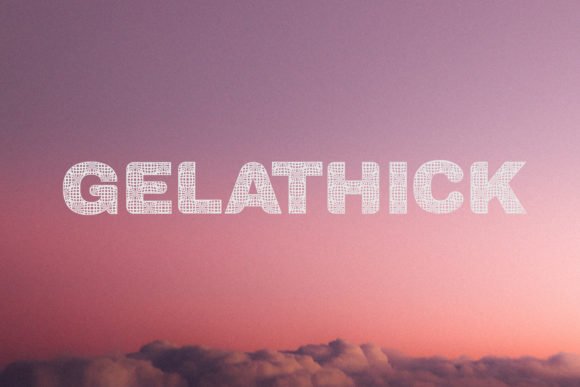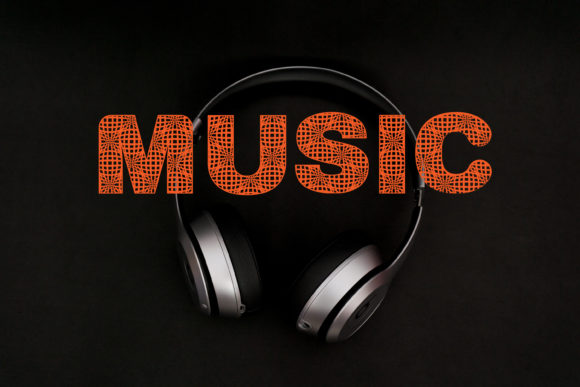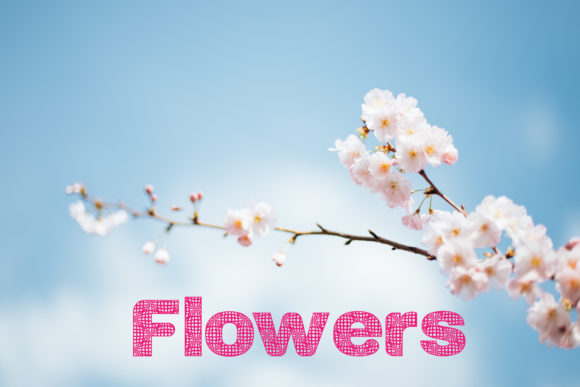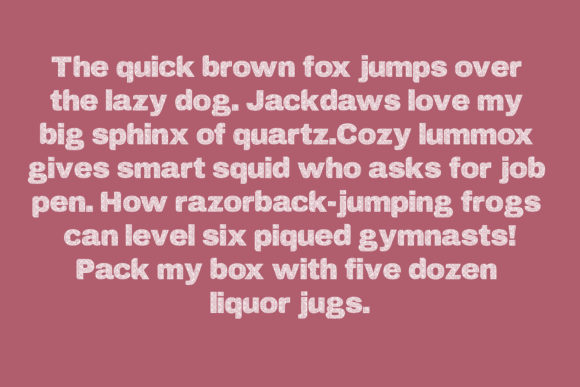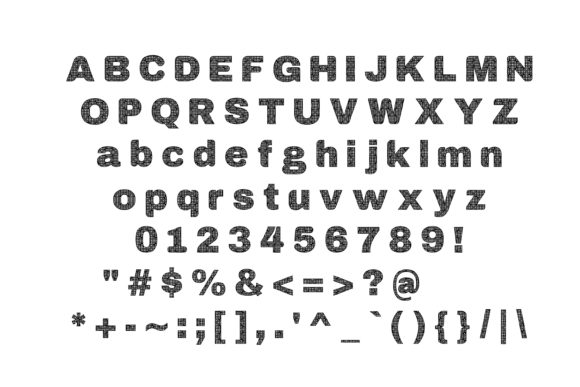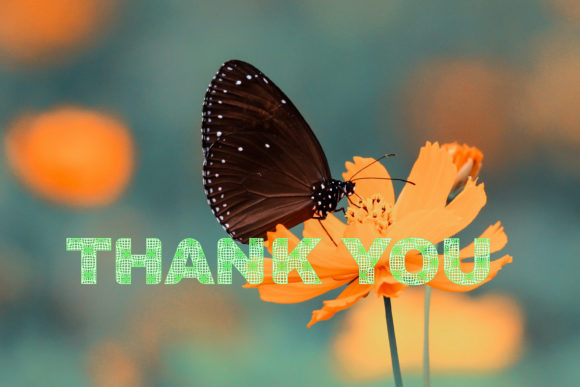
Unleash Your Creativity with Gelathick Font
Have you ever been stuck in a design rut, staring at a blank page, searching for that perfect font to bring your vision to life? I know I have. It’s like the missing puzzle piece, the one that takes your design from meh to mesmerizing. That’s exactly what I experienced when I stumbled upon the stunning Gelathick Font.
Gelathick Font is a captivating display font that’s designed to elevate your designs with its futuristic vibe. Its geometric style is both modern and sleek, making it the perfect choice for any creative project. Whether you’re working on a logo, poster, or digital interface, Gelathick Font is sure to add a touch of sophistication and visual interest.
For designers, Gelathick Font is a valuable addition to their toolkit. Its versatility and unique style make it an excellent choice for a wide range of design applications, from branding and advertising to digital art and graphics. So why settle for ordinary when you can have extraordinary? Give Gelathick Font a try and discover a world of creative possibilities.
Gelathick Font Key Features
- Font Family: Gelathick is a sans-serif font family designed for modern and minimalist designs.
- Unique Characteristics: Gelathick features a unique blend of geometric and organic shapes, resulting in a distinctive and modern aesthetic.
Gelathick Font Review
Overall, I was impressed with the unique and playful vibe of Gelathick Font ✨. It’s perfect for those who want to add a touch of whimsy to their designs. The font is highly customizable, with a wide range of weights and styles to choose from.
- Unique Character**: The font’s quirky personality shines through in its distinctive letterforms and charming flourishes.
- Customization Options**: With over 10 styles and weights to choose from, designers have plenty of flexibility to match the font to their project’s tone and style.
- Legibility**: Despite its playful nature, the font remains surprisingly legible, making it suitable for body text as well as headlines.
However, there are a few areas where Gelathick Font falls short ⚠️:
- Complexity**: With so many customization options, the font can become overwhelming to use, especially for beginners.
- Limited Support**: While the font is compatible with most design software, some users may experience compatibility issues or missing glyphs.
Overall, I would recommend Gelathick Font to designers looking to add a touch of personality to their work. While it may not be the most versatile font, its unique character and customization options make it a valuable addition to any designer’s toolkit.
Gelathick Font is ideal for creative projects that require a unique, hand-drawn look. Some common use cases include:
- Typography-based designs, such as posters or flyers.
- Handwritten-style signatures or quotes.
- Whimsical or playful designs, such as children’s books or party invitations.